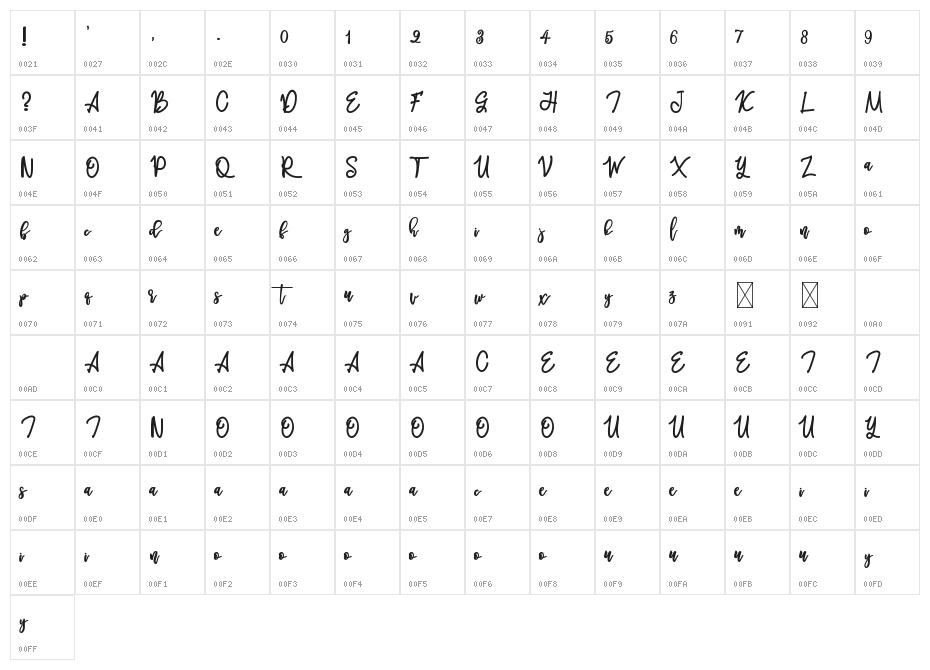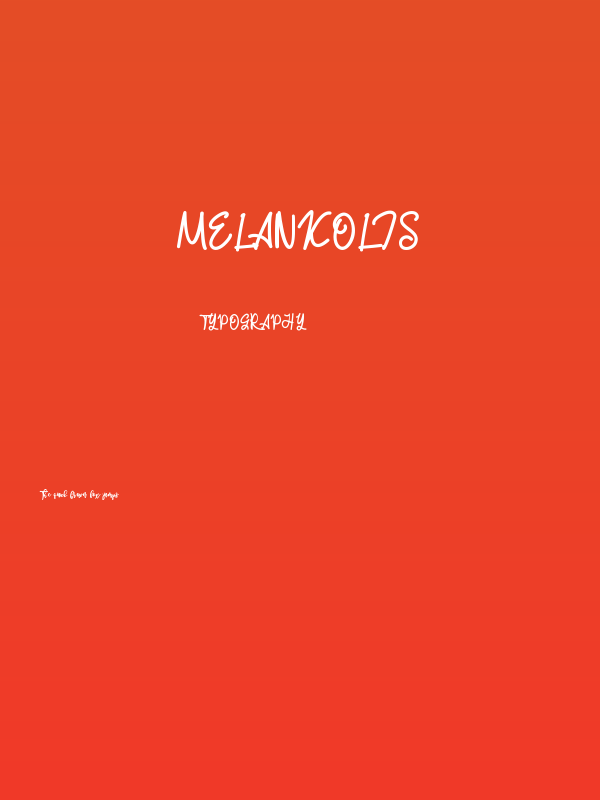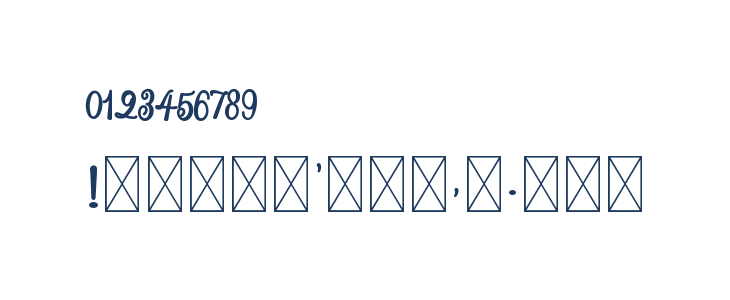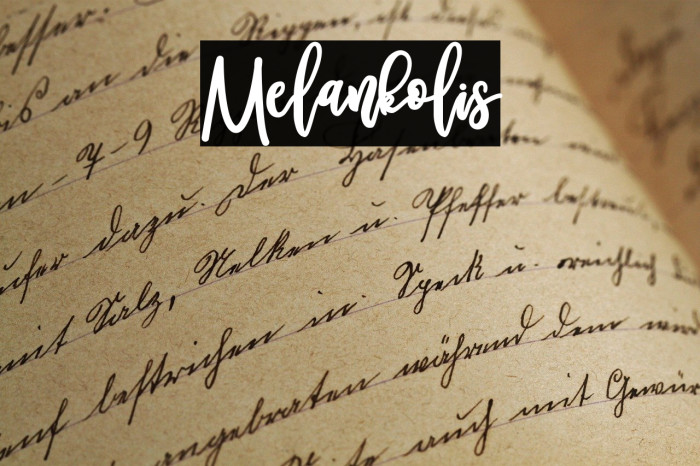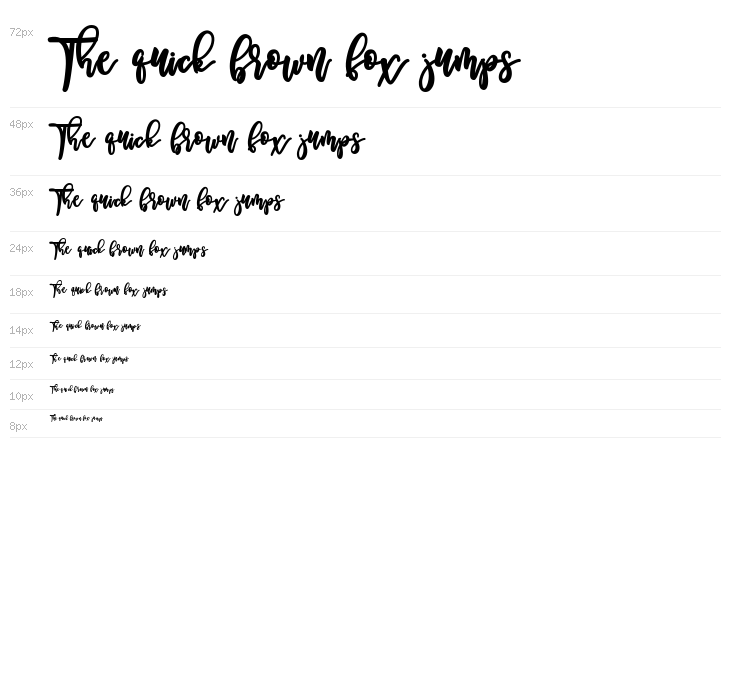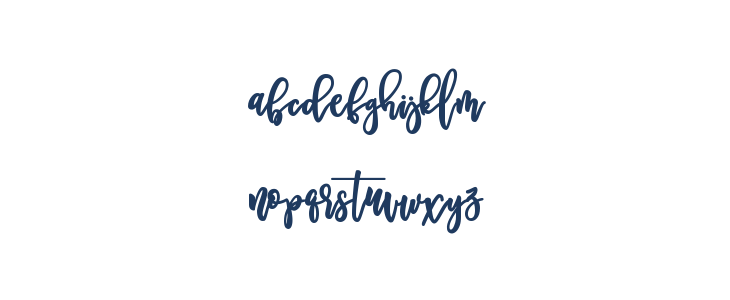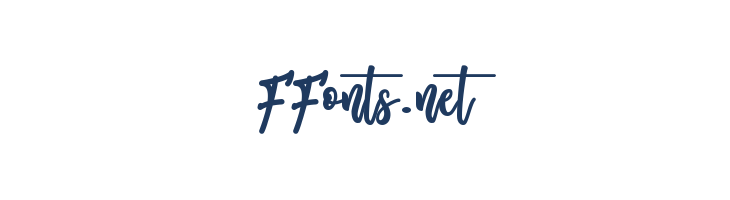
Melankolis Font
Melankolis Description
This font features a dynamic and expressive style, characterized by its flowing script and playful curves. The uppercase letters exhibit a bold and confident presence, with sweeping lines and elegant loops that convey a sense of movement and grace. The lowercase letters maintain this fluidity, with a slightly more compact form that enhances readability while preserving the font's artistic flair. Numbers and special characters are crafted with the same attention to detail, ensuring consistency across all elements. The overall design is both modern and timeless, making it suitable for a variety of creative applications.